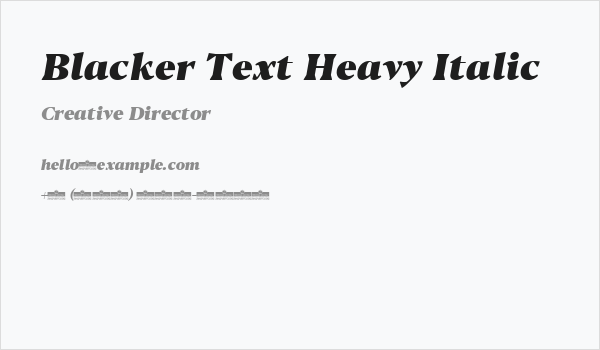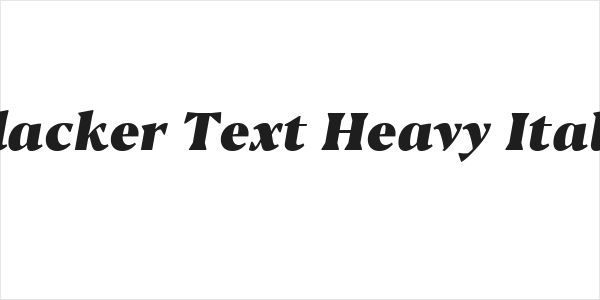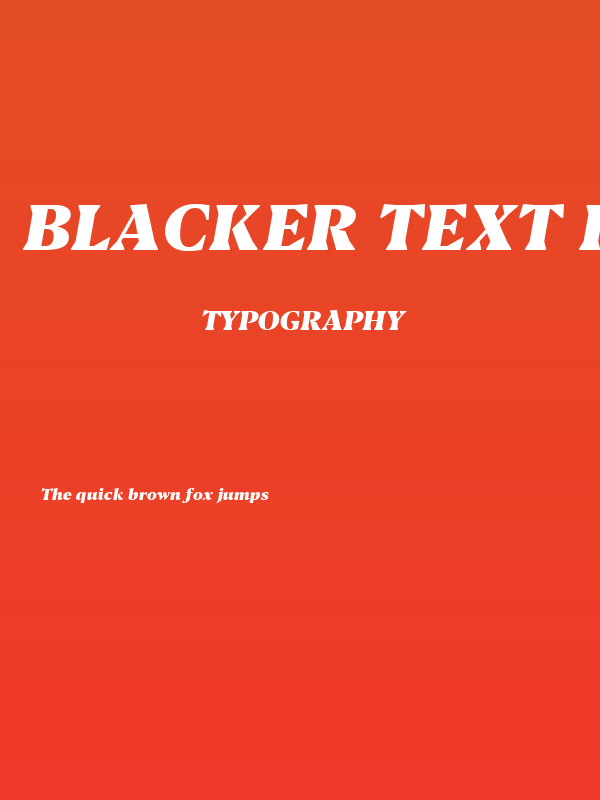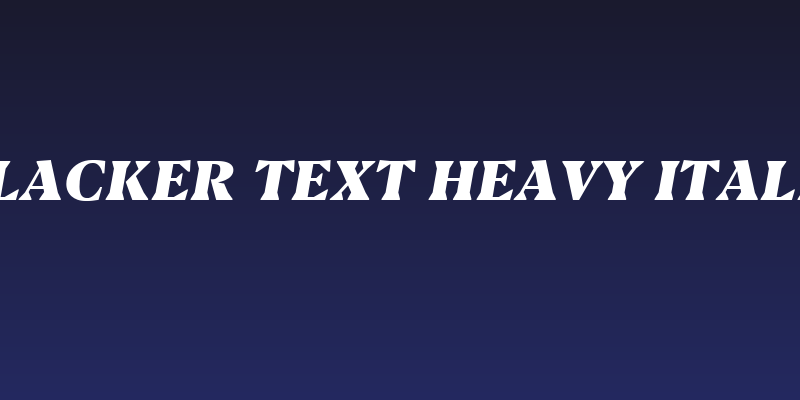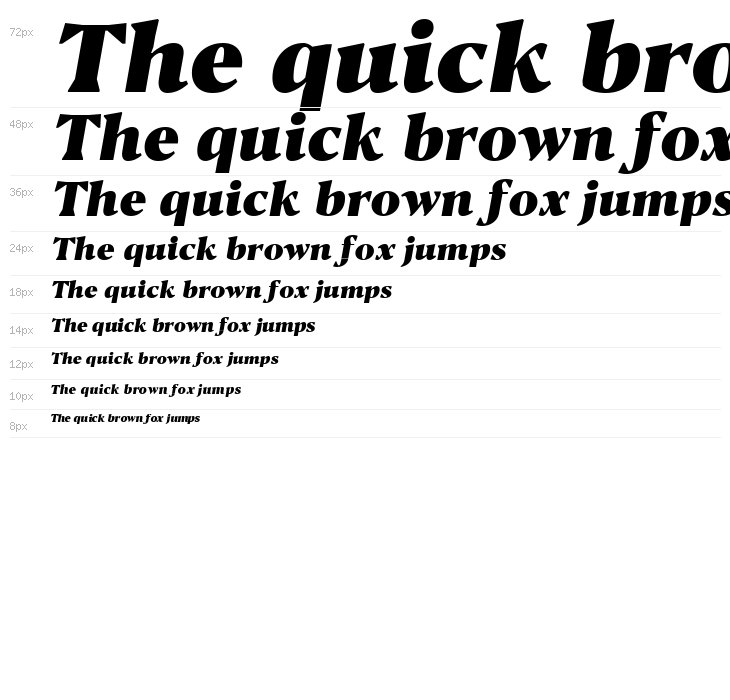
Blacker Text Heavy Italic Font
This font exhibits a bold and assertive style, characterized by its heavy weight and italicized form. The letters have a strong presence with thick strokes and a noticeable slant, giving it a dynamic and energetic appearance. The serifs are pronounced, adding a touch of elegance and tradition to the overall design. The uppercase and lowercase letters maintain consistent proportions, ensuring readability while conveying a sense of authority. The numerals and special characters are designed to match the boldness of the alphabet, making them suitable for impactful statements. This font is ideal for projects that require a strong visual impact and a classic yet modern aesthetic.
Proposed ProjectsIdeal for headlines, branding, posters, and editorial design where a bold statement is needed.